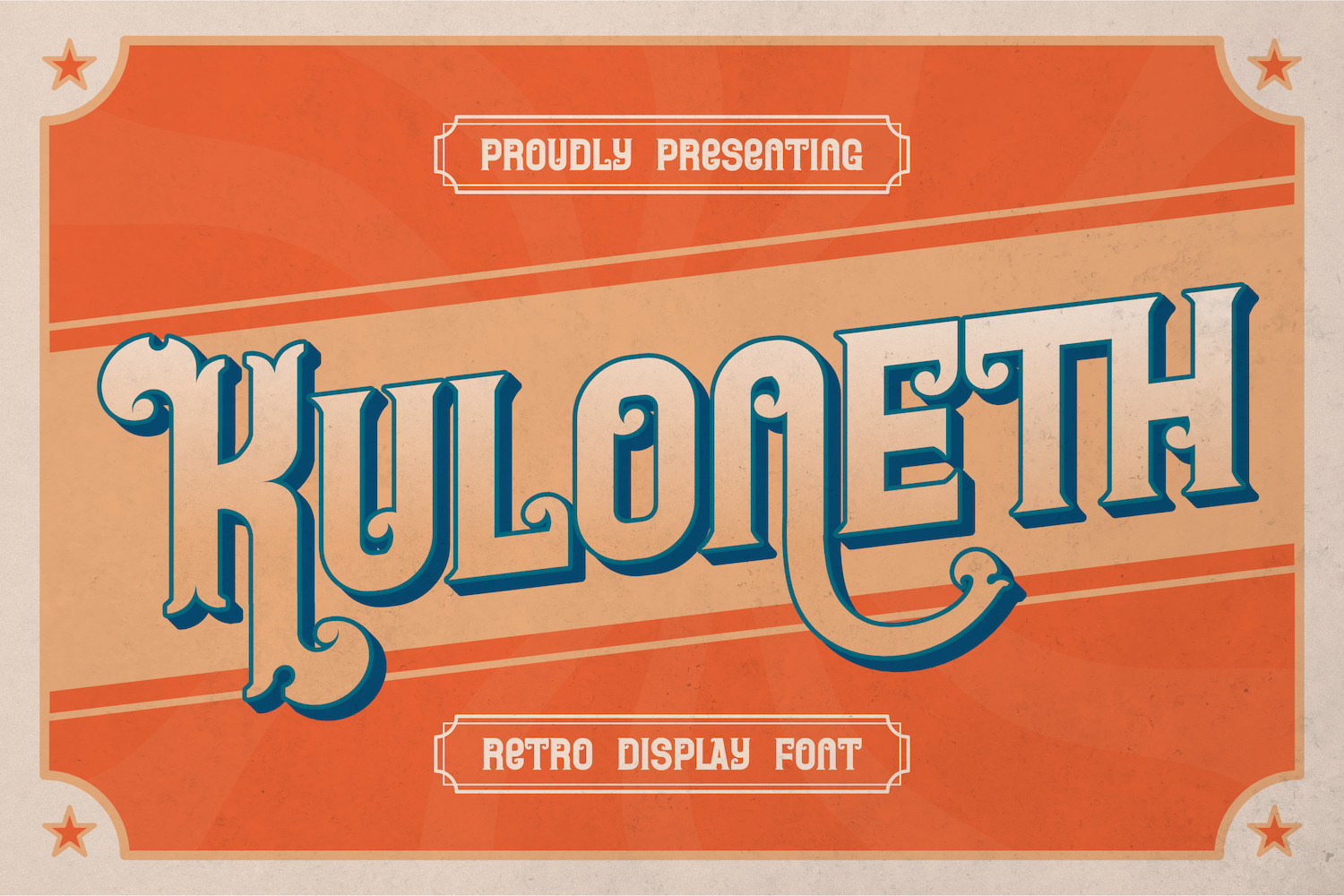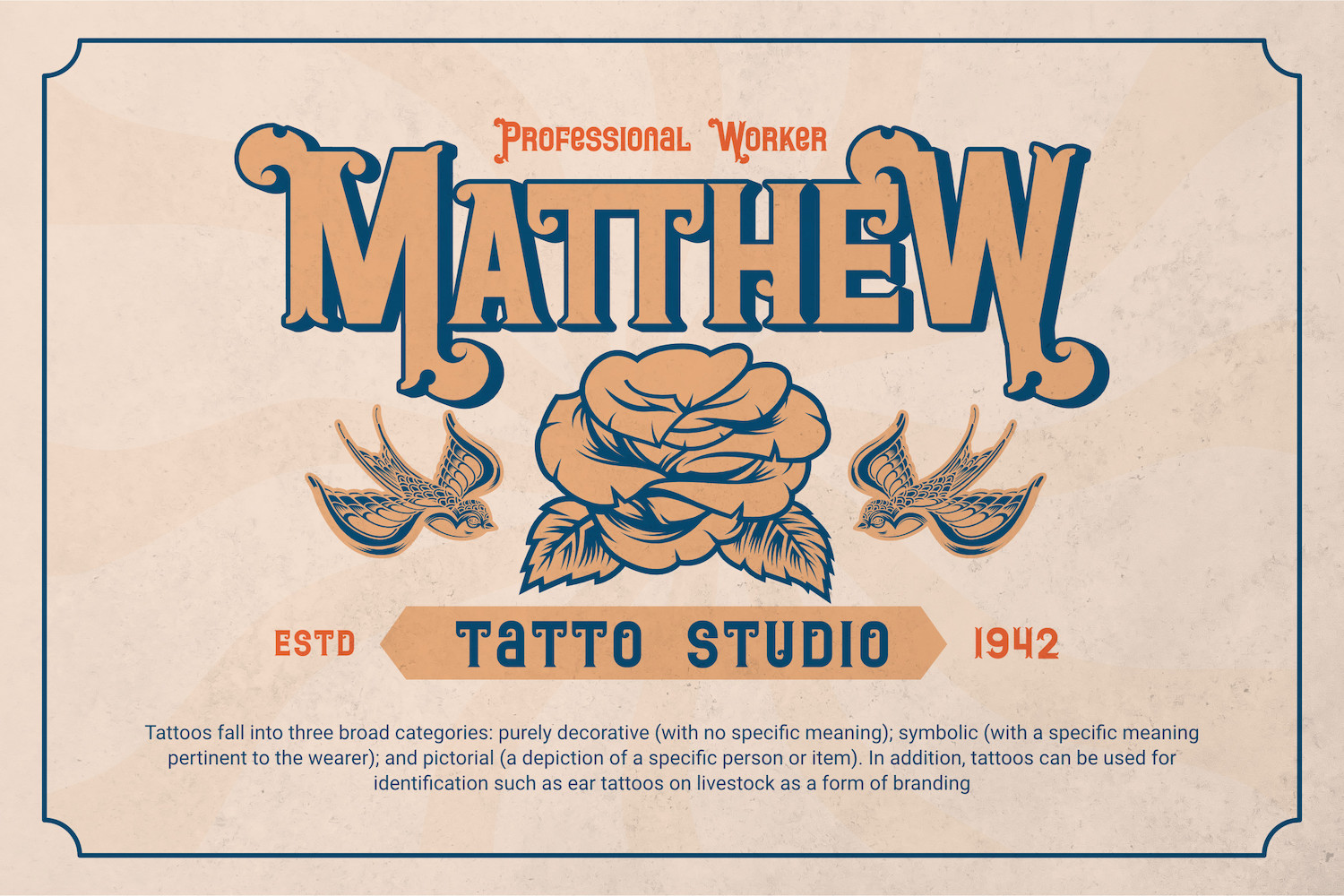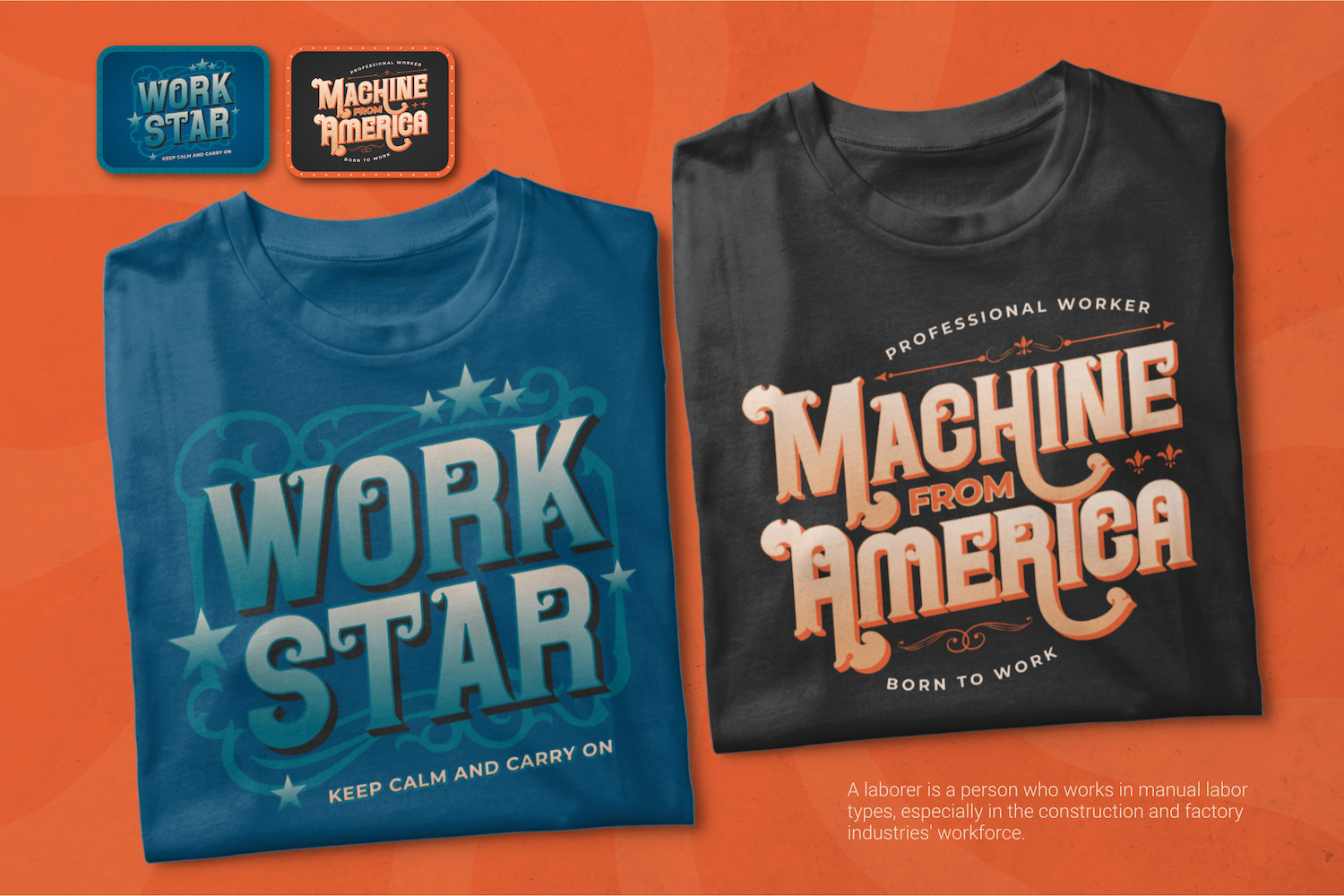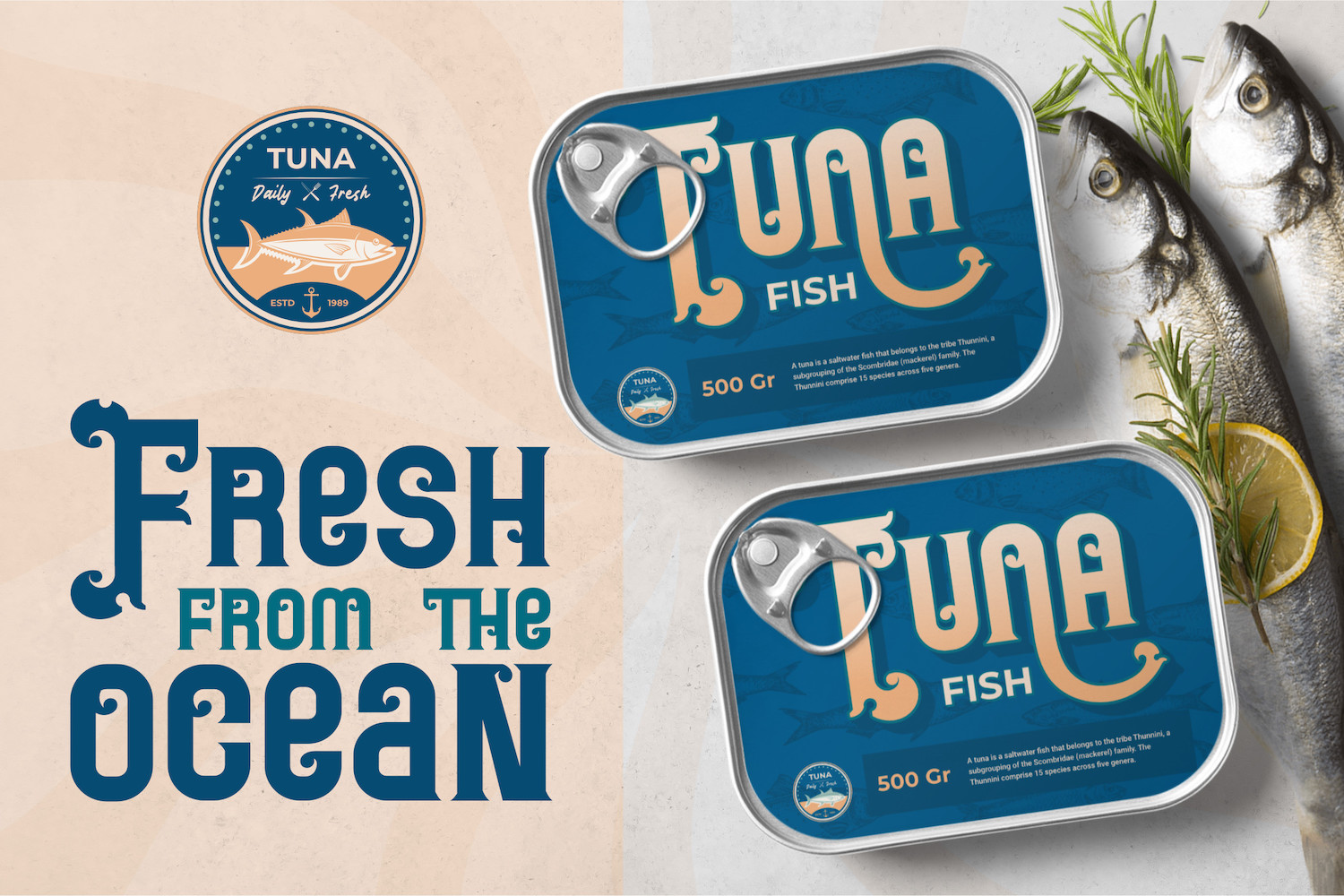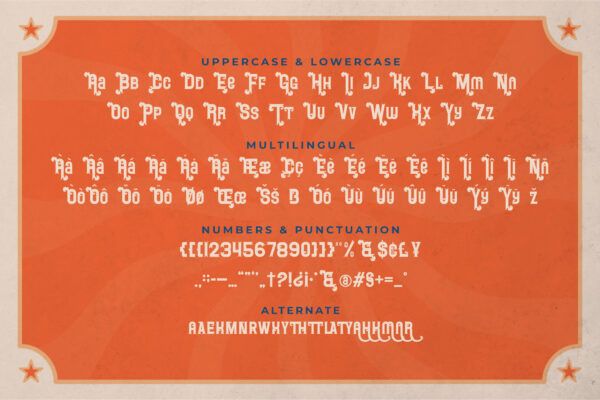
Kuloneth is a bold retro display font that captures the spirit of vintage Americana with a touch of ornamental flair. Designed with thick serifs, dramatic curves, and shadowed depth, it brings a nostalgic charm that’s perfect for packaging, posters, apparel, and sign painting-inspired graphics. Its carefully crafted alternates and multilingual support make it versatile and distinctive in branding or headline use.
The font’s classic curves, playful terminals, and strong structure are reminiscent of traditional circus posters and tattoo signage, making it ideal for projects seeking a vintage statement. Whether you’re working on a product label, a café identity, or a retro apparel brand, Kuloneth delivers an expressive and memorable typographic style.
Kuloneth